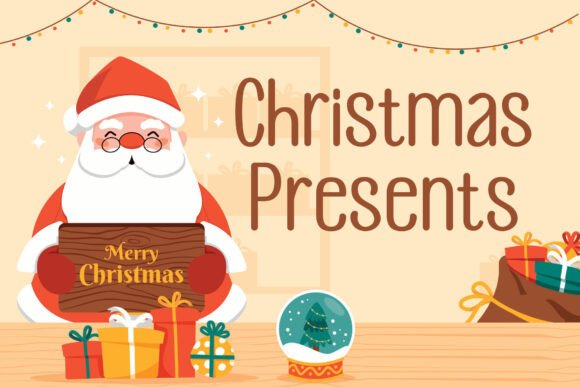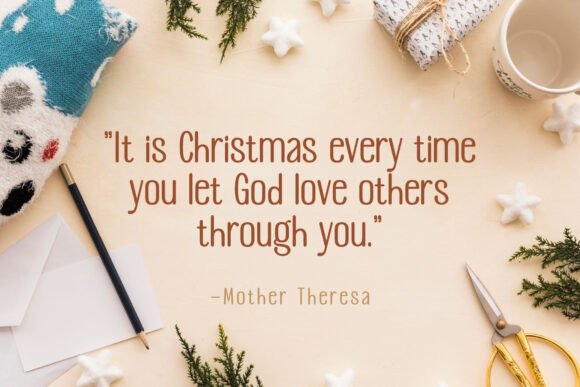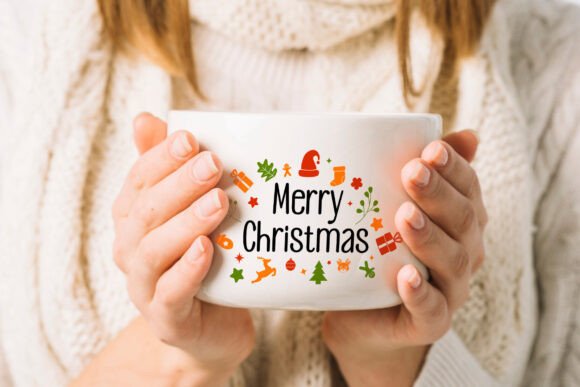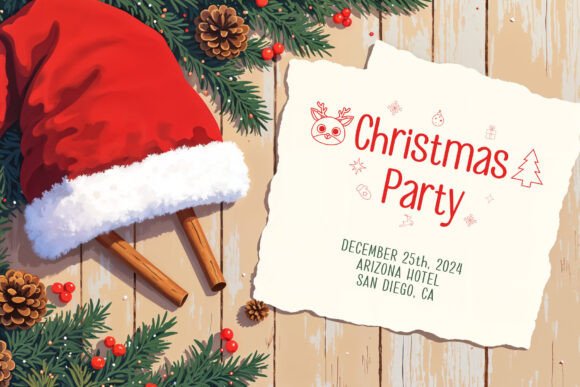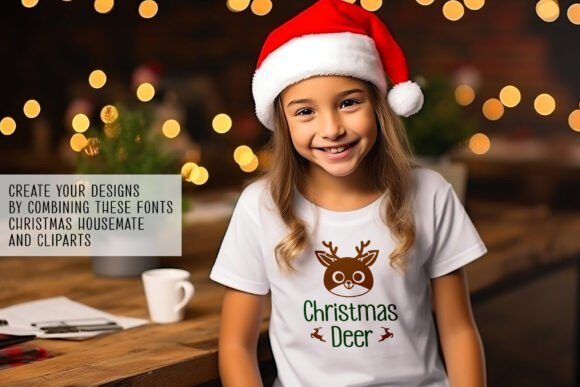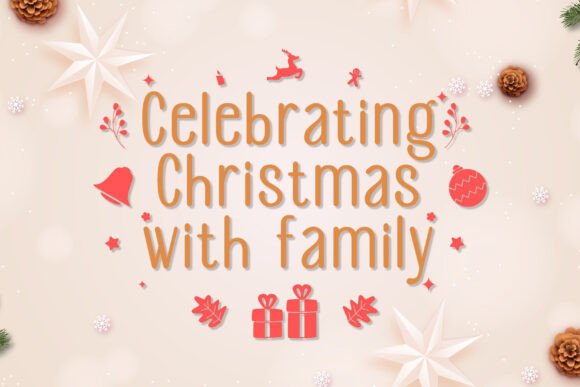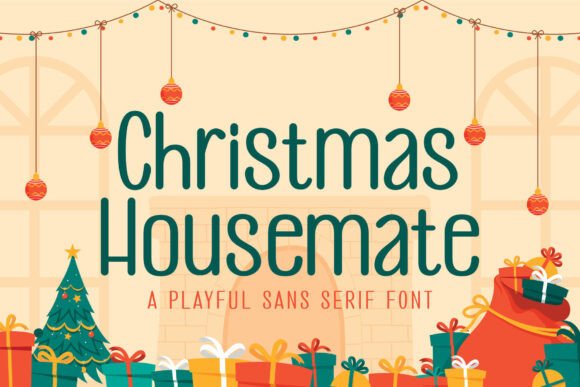
Introducing Christmas Housemate Font: The Perfect Holiday Companion for Designers
Get ready to infuse your holiday designs with a dash of whimsy and playfulness using Christmas Housemate, a charming sans serif font that’s sure to become your go-to for all things festive. This delightful font is crafted to bring a touch of simplicity and joy to your creations, making it an ideal choice for designers and crafters alike.
A Font That Embodies the Spirit of Christmas
Christmas Housemate boasts simple, yet endearing characters that are perfect for crafting warm and inviting designs for the holiday season. Whether you’re working on holiday cards, festive banners, cheerful social media posts, or any other project that requires a festive flair, this font is up to the task. Its clean lines and playful spirit ensure that your designs will stand out and capture the essence of the season.
What Sets Christmas Housemate Apart
One of the unique features of Christmas Housemate is its accompanying doodle font. This addition allows you to incorporate delightful, hand-drawn elements into your designs, taking them to a whole new level of creativity and charm. Imagine being able to add cute little Christmas trees, ornaments, playful reindeer, and intricate snowflakes to your projects with ease. These doodles not only add a personal touch but also bring a smile to everyone’s face, making your designs truly special.
Christmas Housemate is incredibly versatile, making it suitable for a wide range of applications. From professional designers working on large-scale campaigns to hobbyists crafting handmade holiday gifts, this font is designed to meet your needs. Its ease of use ensures that you can focus on the creative aspect of your project without getting bogged down in technical complexities.
The possibilities are endless with Christmas Housemate. Here are a few ideas to get you started:
- Holiday Cards: Create personalized and festive greeting cards that will make your loved ones feel special.
- Festive Banners: Design eye-catching banners for your website, social media, or physical displays that capture the holiday spirit.
- Social Media Posts: Make your holiday-themed social media posts stand out with cheerful and engaging designs.
- DIY Crafts: Add a professional touch to your handmade holiday crafts, such as ornaments, gift tags, and decorations.
Why Choose Christmas Housemate?
Choosing Christmas Housemate for your holiday design needs comes with several benefits:
- Unique Designs: The combination of a charming font and doodle elements ensures your designs are unique and eye-catching.
- Time-Saving: With its easy-to-use nature, you can create stunning holiday designs in less time, allowing you to focus on other tasks.
- Professional Look: Achieve a professional look without needing extensive design experience, making it perfect for hobbyists and professionals alike.
Getting Started with Christmas Housemate
Christmas Housemate is more than just a font; it’s a tool that can help you spread holiday cheer through your designs. Its whimsical and playful nature, combined with its versatility and ease of use, make it an invaluable resource for anyone looking to create festive and engaging holiday content. So why wait? Dive into the holiday spirit with Christmas Housemate and bring your unique designs to life.